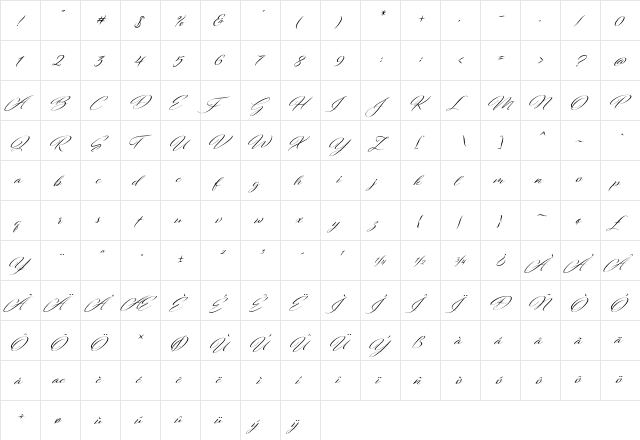
Fresh Script Regular
Design Context for Fresh Script Typeface
Fresh Script flows with the natural rhythm of handwritten lettering, making it ideal for designs that call for warmth and personal expression.
Font Pairing: Combine Fresh Script with a simple geometric sans for maximum contrast — the tension between flowing curves and clean structure is a classic typographic pairing.
Pro Tip: Pair Fresh Script with a clean sans-serif for supporting text. The contrast between fluid script and geometric structure creates an elegant typographic hierarchy.